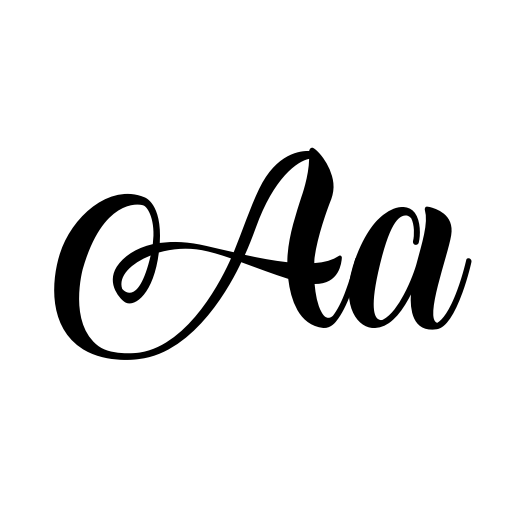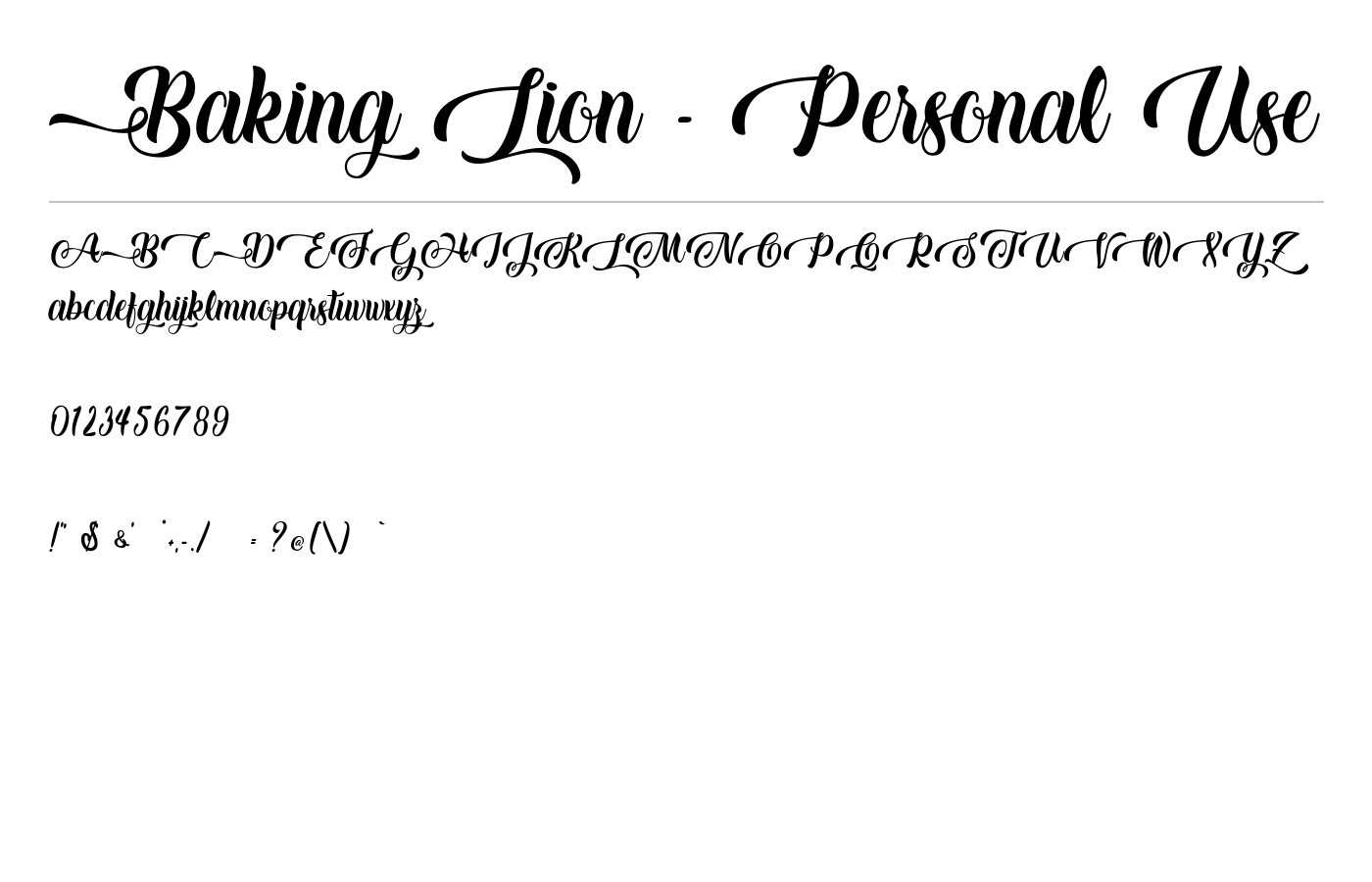
Baking Lion is a graceful script font featuring elegant, flowing letterforms with flourished swashes that add a touch of sophistication. Its slender weight and high contrast strokes give it a delicate, refined look, making it perfect for invitations, branding, and any project needing a stylish and personal feel. This font works beautifully in creative designs that seek a charming, handcrafted vibe with an air of elegance.
Baking Lion - Personal Use Font
| Designer | Typhoon Type - Suthi Srisopha |